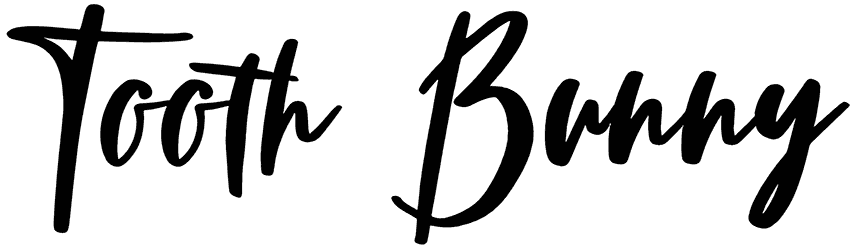
Tooth Bunny Font
How often do your designs end up missing a personal touch? We’re here to make sure that doesn’t happen again by recommending Tooth Bunny to you. Styling your words in handwriting to sound so friendly is one of the perks of choosing this handwritten font.
Also, you’ve got nothing to worry about the looks of your text. This cursive script font is there to make sure your dance class posters, beach party flyers, and vacation website designs turn out just tasteful.
Tooth Bunny is a beautiful handwritten font with a brush. It looks stunning on greeting cards, wall decoration, invitation wedding, business card and so on! Tooth Bunny is PUA which means you can access all of the glyphs, swashes and ligatures with ease!Hope you like it!